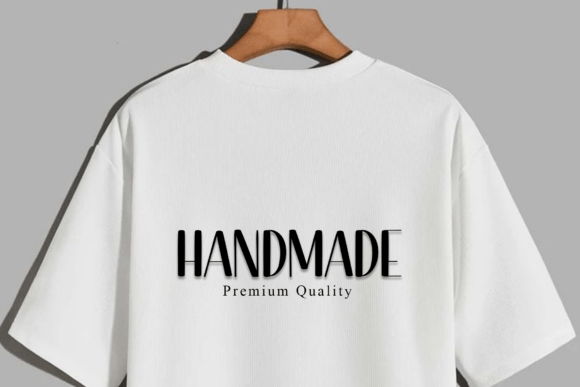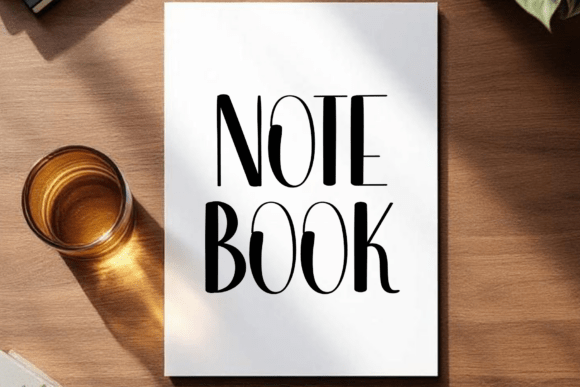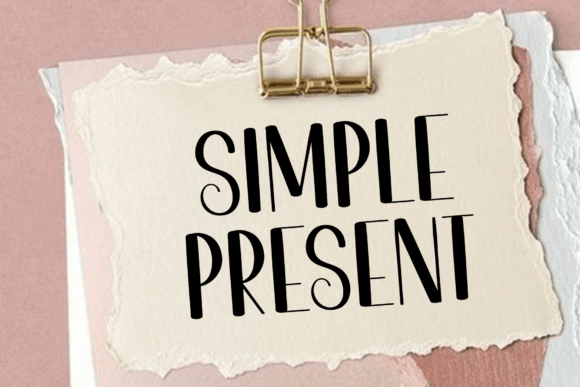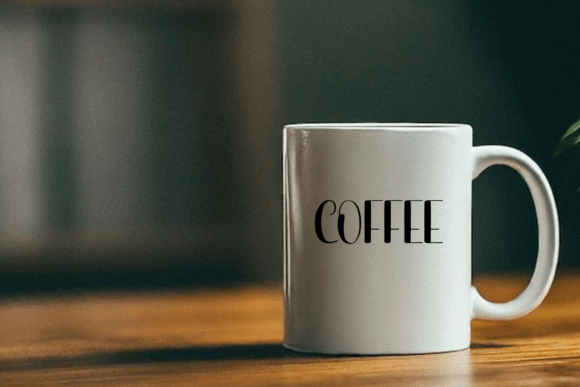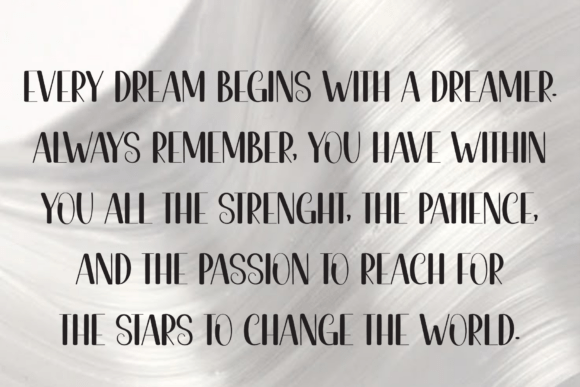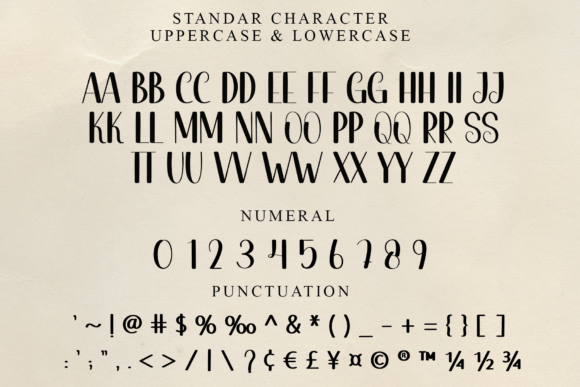
Deck the Halls with the Perfect Holiday Font
It’s that time of the year again when the air is filled with the spirit of festivity and creativity. You’re rummaging through your design tools, searching for the perfect font to make your holiday projects stand out. And then, it hits you – the magical sound of the “Baby Shark” theme song starts playing in your head, and you can’t help but smile. You’re not alone in this creative moment, are you?
Enter the Baby Shark Font, a festive and merry typeface that captures the essence of the holiday season. This enchanting font is designed to add a touch of whimsy to your designs, making it perfect for greeting cards, gift tags, and holiday-themed projects. With its decorative elements and PUA encoding, you’ll have access to all the amazing glyphs and ligatures, ensuring your typography shines with magic.
Baby Shark Font Key Features
- Unique Characteristics: The font features a distinctive, hand-drawn design with bold lines and playful shapes, making it perfect for use in children’s educational materials, nursery rhymes, and kids’ entertainment.
- Characters and Symbols: The font includes a wide range of characters, including uppercase and lowercase letters, numbers, punctuation marks, and special symbols, making it suitable for use in a variety of applications.
- Color and Style Options: The font comes in multiple colors and styles, including bold, italic, and regular, allowing users to customize their designs and match the font to their specific needs.
Designer Review: Baby Shark Font
As a designer, I was both intrigued and skeptical when I first heard about the Baby Shark Font. At first glance, the font seems to capture the playful and cheerful essence of the popular children’s song. ✨
Here are some of its standout features:
- The font’s bold and rounded design makes it perfect for creating eye-catching and fun graphics.
- The font is highly legible, even at smaller font sizes, which is a great advantage for designers working on various projects.
- The font comes with a range of customizable options, including color schemes and animation effects, which can be useful for designers looking to create engaging and dynamic content.
- The font’s design can come across as childish or immature in certain contexts, which may not be suitable for all projects.
- The font’s customization options can be overwhelming, making it difficult for some designers to navigate and find the perfect settings.
- The font’s animation effects can be distracting or overbearing in some cases, so designers need to use them judiciously.
Overall, the Baby Shark Font is a fun and creative addition to any designer’s toolkit, but it’s essential to use it thoughtfully and in contexts where its playful nature will shine through. ⚠️
The Baby Shark font is perfect for:
– Children’s birthday invitations and party decorations
– Educational materials and worksheets
– Any design project that requires a fun and playful touch
Tips for Getting the Most Out of the Baby Shark Font
– Use the font in combination with other bold and playful fonts to create a fun and engaging design.
– Experiment with different font sizes and colors to add visual interest to your design.